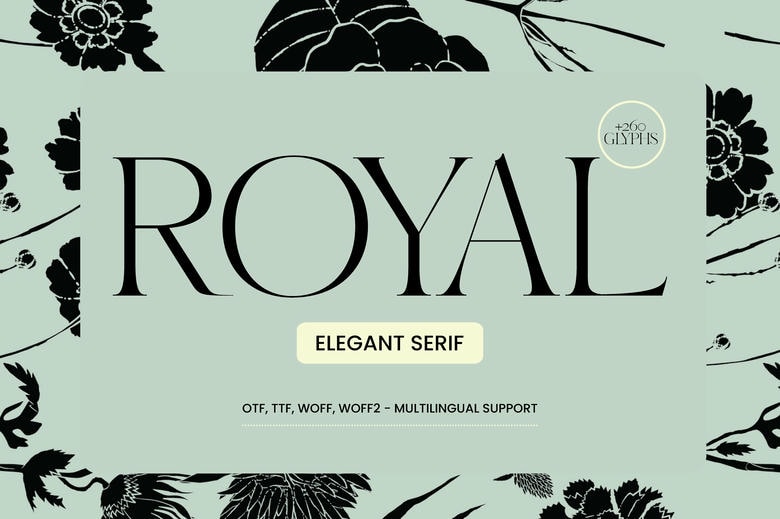
Royal Serif Font
Royal is a tiny, feminine, and graceful serif typeface. The quality that makes it a good alternative when you are coming up with items that are elegant, luxurious or feminine is its simple nature and its smooth construction. You may apply it to your imaginative thoughts and observe how strong it is within.